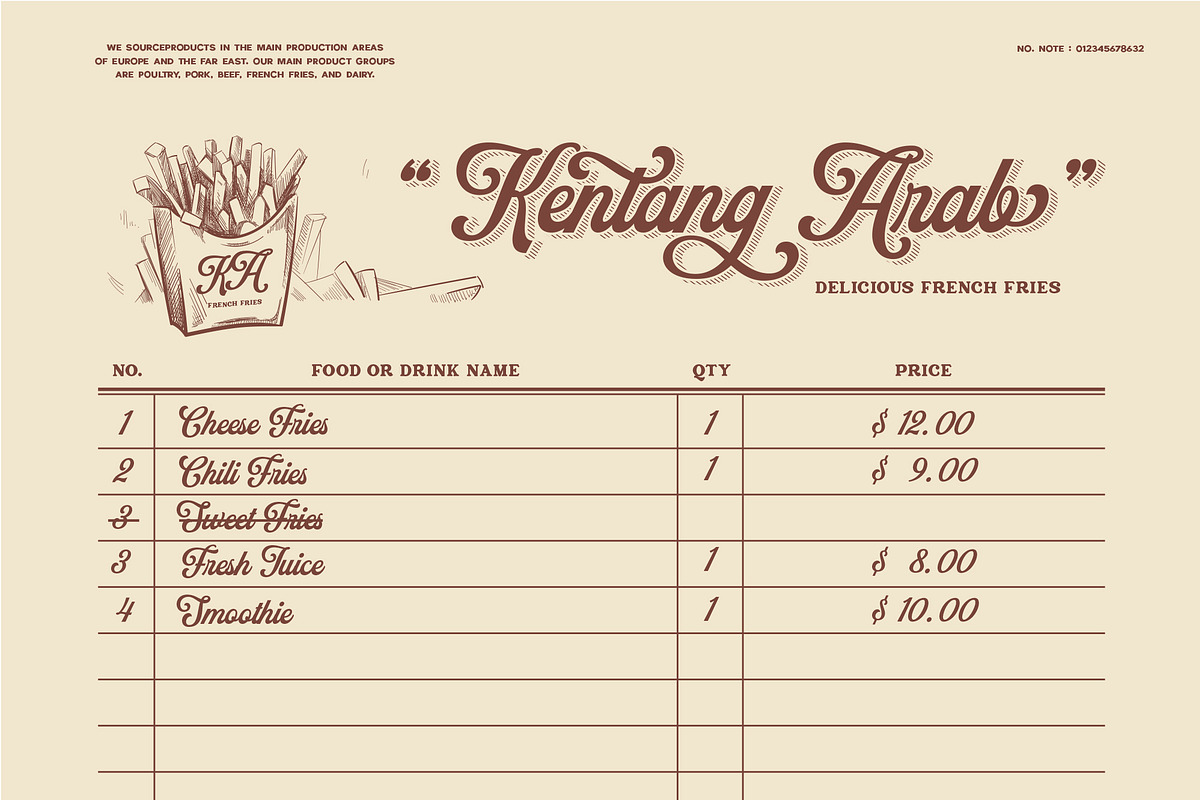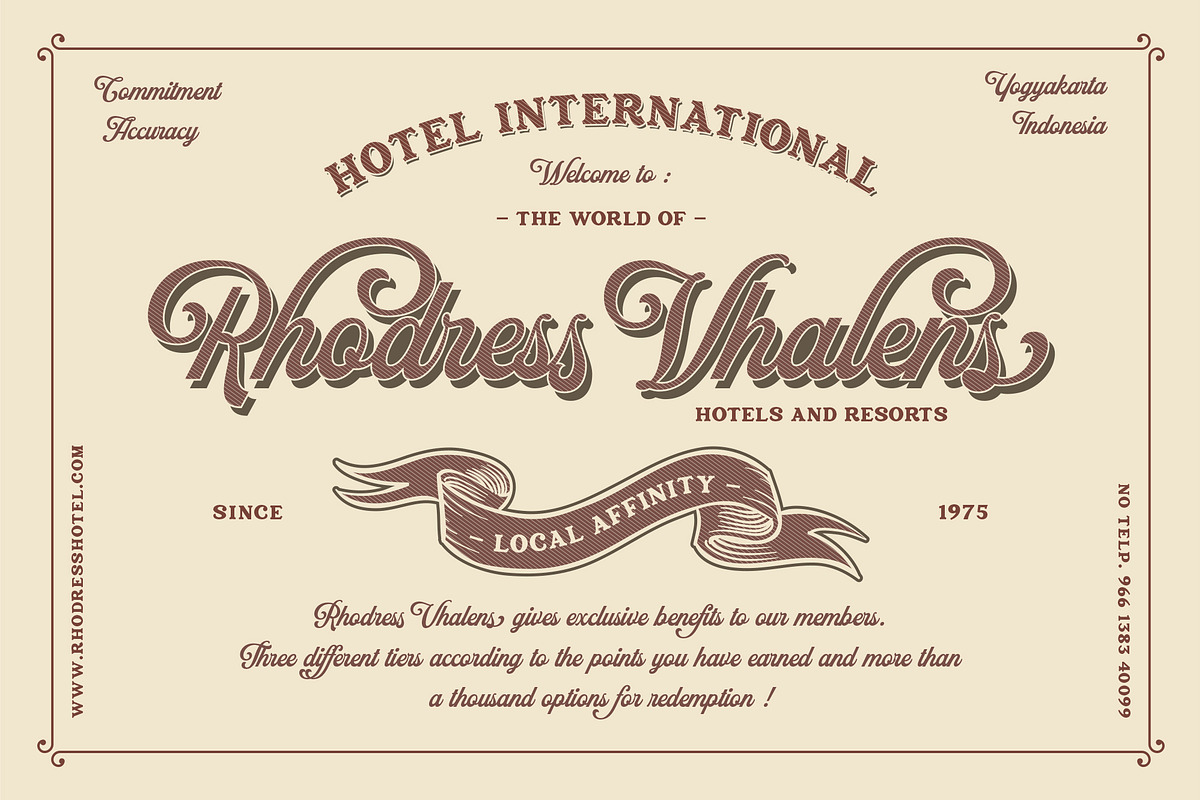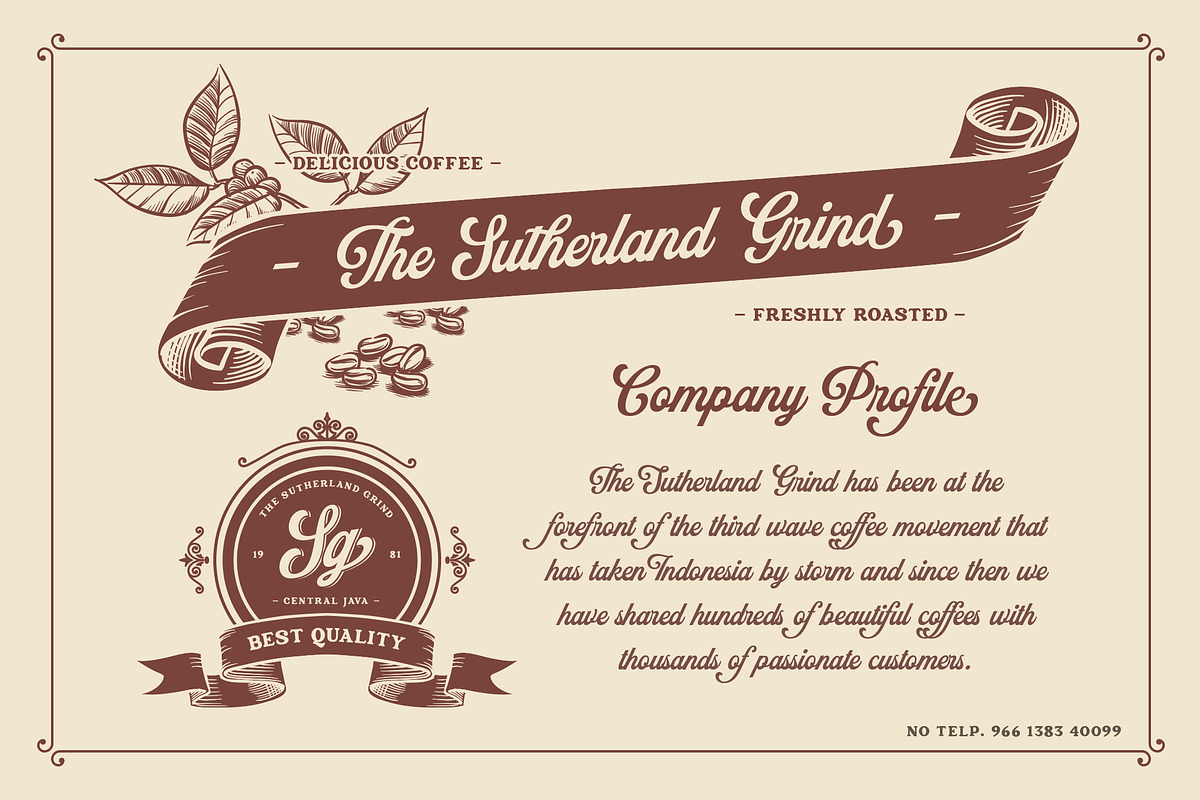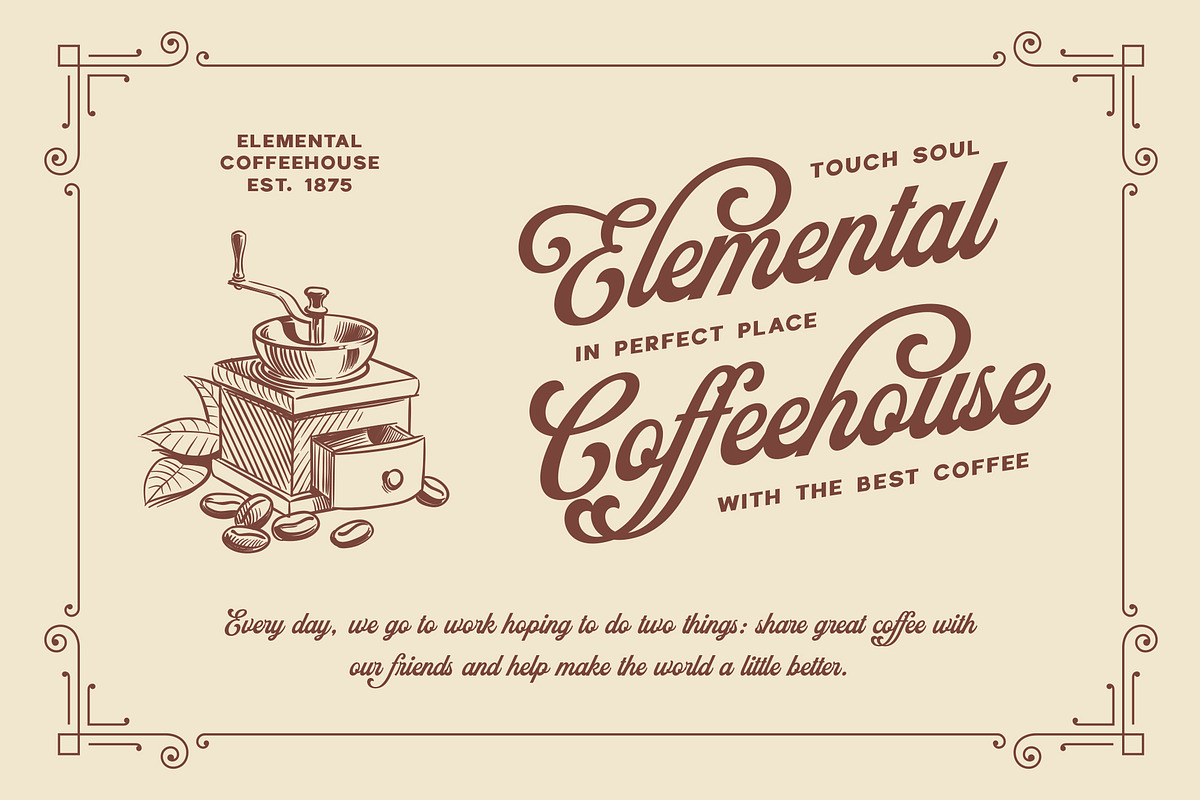
Neville Font
Introducing Neville – Display Font
Neville inspired by beautiful lettering in old label. Carefully made with perfectly horizontal vertical bezier handles. Every single letter contains beautiful alternates characters(ss01 - ss13)and feature ligatures.
The Neville matches applies in some designs such as the logotype, brand, packaging, branding, quotes, business cards and more custom design. The features uppercase, lowercase, numeral, punctuation & symbol, ligatures, alternates, multilingual support, PUA encoded (fully accessible without additional design software).
- Every single letter contains beautiful alternates characters(ss01 - ss13)and feature ligatures.
Why Neville Font is worth a look